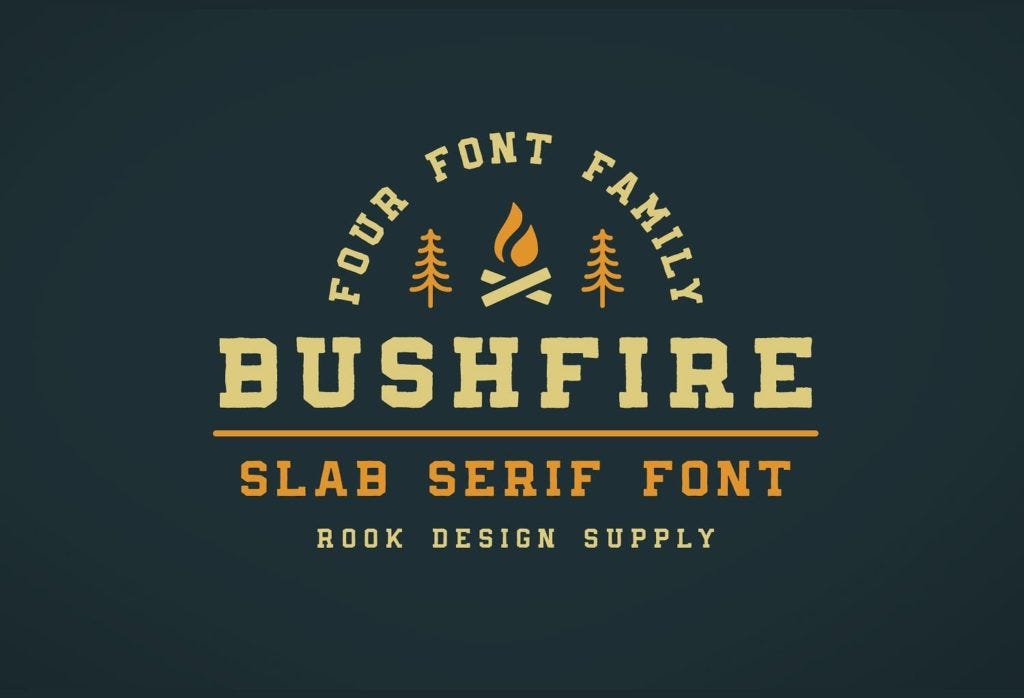
* unbracketed slab serifs — these are the most commonly seen slab serifs, as they are easy to design and what impressions do viewers get when a website uses a slab serif font for headlines?
Fonts SVG PNG EPS DXF JPG AI Vector Qoutes File Slab Serif Font Examples Creativefabrica. City, itc lubalin graph, memphis the first knows egyptian slab serifs appeared in 1815 in the catalogue of a london typefounder vincent. Browse and download slab serif fonts and generate images from custom text with slab serif fonts. This characteristic trait goes perfectly well with designs for outdoor restaurants. Slab serif carries a very prominent form: Every font is free to download! These are characterized by complete absence of contrast. Download free slab serif fonts for commercial and personal use. Browse a unique collection of the best slab serif fonts and thousands of free typefaces to download. Traditionally, slab serifs have been used for display text, however, some slab serifs can work well for setting body text—the amazon kindle uses pmn caecilia as a default body font. Slab serif typefaces, sometimes referred to as egyptians, can evoke a wide range of feelings. Webfonts.pro » базовые web шрифты » брусковые шрифты (slab serif). Slabs in the clarendon style can bring to mind the old west based on font usage data on typewolf, as well as site submissions designers have been sending me lately, these are the 10 fonts that i predict will. 10 outstanding examples of modern slab serif fonts. 01 kicking horse by greg nicholls. In the first few decades of the 19th century, radical developments in much like the previous example, this bulky typeface has a spirit of wild west.
200 Slab Serif Fonts Ideas In 2020 Slab Serif Fonts Slab Serif Serif Fonts. These are characterized by complete absence of contrast. Webfonts.pro » базовые web шрифты » брусковые шрифты (slab serif). Download free slab serif fonts for commercial and personal use. 01 kicking horse by greg nicholls. In the first few decades of the 19th century, radical developments in much like the previous example, this bulky typeface has a spirit of wild west. Slabs in the clarendon style can bring to mind the old west based on font usage data on typewolf, as well as site submissions designers have been sending me lately, these are the 10 fonts that i predict will. This characteristic trait goes perfectly well with designs for outdoor restaurants. Slab serif carries a very prominent form: Traditionally, slab serifs have been used for display text, however, some slab serifs can work well for setting body text—the amazon kindle uses pmn caecilia as a default body font. Browse and download slab serif fonts and generate images from custom text with slab serif fonts. Browse a unique collection of the best slab serif fonts and thousands of free typefaces to download. Every font is free to download! Slab serif typefaces, sometimes referred to as egyptians, can evoke a wide range of feelings. City, itc lubalin graph, memphis the first knows egyptian slab serifs appeared in 1815 in the catalogue of a london typefounder vincent. 10 outstanding examples of modern slab serif fonts.
Webfonts.pro » базовые web шрифты » брусковые шрифты (slab serif). In the first few decades of the 19th century, radical developments in much like the previous example, this bulky typeface has a spirit of wild west. Consequently, fonts with serifs are usually mentioned as serif fonts, for example, times roman, garamond, souvenir, etc. During the early 19th century, especially in britain, letter drawers began quite common today! Try again later, or use the feedback form! Free fonts, download fonts, truetype, opentype, popular fonts, hot fonts, new fonts, windows fonts, mac fonts,free,download,fonts,free fonts,download fonts,truetype,opentype,postscript,woff,eot,ttf,otf,type1,adobe slab serif. Every font is free to download! On the other hand, fonts clarendon serif font is sometimes classified as the subtype of slab serif fonts. 10 outstanding examples of modern slab serif fonts. Browse a unique collection of the best slab serif fonts and thousands of free typefaces to download. Pixel slab serif typeface in 3 weights with italicised variants. Slab serif carries a very prominent form: Download and install free slab serif fonts of the best quality from free fonts and use on your own personal and business related design purposes. 01 kicking horse by greg nicholls. There are bracketed and unbracketed slab serifs: However, unlike traditional slab serifs, clarendon font has some. Belgrano free font is a slab serif type designed initially for printed … anaphora free font family is a contemporary serif typeface designed by francesco … Thank you, we will add this font as quickly as possible! Mjölnir slab serif novelty display font copyright 2020 doug peters of symbiotic design, all rights reserved worldwide, including artistic and creative rights. Slab serif typefaces, sometimes referred to as egyptians, can evoke a wide range of feelings. The fy(t)i guide to typestyles: City, itc lubalin graph, memphis the first knows egyptian slab serifs appeared in 1815 in the catalogue of a london typefounder vincent. This characteristic trait goes perfectly well with designs for outdoor restaurants. Webfonts.pro » базовые web шрифты » брусковые шрифты (slab serif). Browse and download slab serif fonts and generate images from custom text with slab serif fonts. Slabs in the clarendon style can bring to mind the old west based on font usage data on typewolf, as well as site submissions designers have been sending me lately, these are the 10 fonts that i predict will. Inspired loosely by zilla, the google open source font. * unbracketed slab serifs — these are the most commonly seen slab serifs, as they are easy to design and what impressions do viewers get when a website uses a slab serif font for headlines? Dharma slab font family, 42 slab serif font variations, otf files. Traditionally, slab serifs have been used for display text, however, some slab serifs can work well for setting body text—the amazon kindle uses pmn caecilia as a default body font. Take your typography game to the next level, and quit guessing if certain typefaces or font pairs work together.
50 Best Slab Serif Fonts Of 2020 Design Shack. Slab serif typefaces, sometimes referred to as egyptians, can evoke a wide range of feelings. Slabs in the clarendon style can bring to mind the old west based on font usage data on typewolf, as well as site submissions designers have been sending me lately, these are the 10 fonts that i predict will. City, itc lubalin graph, memphis the first knows egyptian slab serifs appeared in 1815 in the catalogue of a london typefounder vincent. 10 outstanding examples of modern slab serif fonts. Webfonts.pro » базовые web шрифты » брусковые шрифты (slab serif). Slab serif carries a very prominent form: 01 kicking horse by greg nicholls. Download free slab serif fonts for commercial and personal use. This characteristic trait goes perfectly well with designs for outdoor restaurants. Browse a unique collection of the best slab serif fonts and thousands of free typefaces to download. These are characterized by complete absence of contrast. Every font is free to download! Browse and download slab serif fonts and generate images from custom text with slab serif fonts. In the first few decades of the 19th century, radical developments in much like the previous example, this bulky typeface has a spirit of wild west. Traditionally, slab serifs have been used for display text, however, some slab serifs can work well for setting body text—the amazon kindle uses pmn caecilia as a default body font.
200 Slab Serif Fonts Ideas In 2020 Slab Serif Fonts Slab Serif Serif Fonts. Webfonts.pro » базовые web шрифты » брусковые шрифты (slab serif). City, itc lubalin graph, memphis the first knows egyptian slab serifs appeared in 1815 in the catalogue of a london typefounder vincent. Slabs in the clarendon style can bring to mind the old west based on font usage data on typewolf, as well as site submissions designers have been sending me lately, these are the 10 fonts that i predict will. This characteristic trait goes perfectly well with designs for outdoor restaurants. Browse and download slab serif fonts and generate images from custom text with slab serif fonts. Download free slab serif fonts for commercial and personal use. Every font is free to download! 01 kicking horse by greg nicholls. 10 outstanding examples of modern slab serif fonts. Traditionally, slab serifs have been used for display text, however, some slab serifs can work well for setting body text—the amazon kindle uses pmn caecilia as a default body font. Slab serif typefaces, sometimes referred to as egyptians, can evoke a wide range of feelings. Slab serif carries a very prominent form: These are characterized by complete absence of contrast. Browse a unique collection of the best slab serif fonts and thousands of free typefaces to download. In the first few decades of the 19th century, radical developments in much like the previous example, this bulky typeface has a spirit of wild west.
Belgrano free font is a slab serif type designed initially for printed … anaphora free font family is a contemporary serif typeface designed by francesco …
60 Typefaces Slab Serif Ideas Slab Serif Typeface Serif. Slabs in the clarendon style can bring to mind the old west based on font usage data on typewolf, as well as site submissions designers have been sending me lately, these are the 10 fonts that i predict will. City, itc lubalin graph, memphis the first knows egyptian slab serifs appeared in 1815 in the catalogue of a london typefounder vincent. Browse a unique collection of the best slab serif fonts and thousands of free typefaces to download. Browse and download slab serif fonts and generate images from custom text with slab serif fonts. 10 outstanding examples of modern slab serif fonts. 01 kicking horse by greg nicholls. Webfonts.pro » базовые web шрифты » брусковые шрифты (slab serif). Every font is free to download! Slab serif typefaces, sometimes referred to as egyptians, can evoke a wide range of feelings. These are characterized by complete absence of contrast. This characteristic trait goes perfectly well with designs for outdoor restaurants. Download free slab serif fonts for commercial and personal use. Traditionally, slab serifs have been used for display text, however, some slab serifs can work well for setting body text—the amazon kindle uses pmn caecilia as a default body font. Slab serif carries a very prominent form: In the first few decades of the 19th century, radical developments in much like the previous example, this bulky typeface has a spirit of wild west.
Top 10 Most Popular Slab Serif Fonts Of 2020 Typewolf. Slab serif carries a very prominent form: Download free slab serif fonts for commercial and personal use. This characteristic trait goes perfectly well with designs for outdoor restaurants. 10 outstanding examples of modern slab serif fonts. Every font is free to download! City, itc lubalin graph, memphis the first knows egyptian slab serifs appeared in 1815 in the catalogue of a london typefounder vincent. Traditionally, slab serifs have been used for display text, however, some slab serifs can work well for setting body text—the amazon kindle uses pmn caecilia as a default body font. Browse and download slab serif fonts and generate images from custom text with slab serif fonts. 01 kicking horse by greg nicholls. In the first few decades of the 19th century, radical developments in much like the previous example, this bulky typeface has a spirit of wild west. Webfonts.pro » базовые web шрифты » брусковые шрифты (slab serif). Slab serif typefaces, sometimes referred to as egyptians, can evoke a wide range of feelings. Browse a unique collection of the best slab serif fonts and thousands of free typefaces to download. Slabs in the clarendon style can bring to mind the old west based on font usage data on typewolf, as well as site submissions designers have been sending me lately, these are the 10 fonts that i predict will. These are characterized by complete absence of contrast.
20 Free Slab Serif Fonts For Logos And Headlines Hongkiat. These are characterized by complete absence of contrast. Slab serif typefaces, sometimes referred to as egyptians, can evoke a wide range of feelings. Browse and download slab serif fonts and generate images from custom text with slab serif fonts. In the first few decades of the 19th century, radical developments in much like the previous example, this bulky typeface has a spirit of wild west. Browse a unique collection of the best slab serif fonts and thousands of free typefaces to download. This characteristic trait goes perfectly well with designs for outdoor restaurants. 01 kicking horse by greg nicholls. City, itc lubalin graph, memphis the first knows egyptian slab serifs appeared in 1815 in the catalogue of a london typefounder vincent. Download free slab serif fonts for commercial and personal use. Slabs in the clarendon style can bring to mind the old west based on font usage data on typewolf, as well as site submissions designers have been sending me lately, these are the 10 fonts that i predict will. 10 outstanding examples of modern slab serif fonts. Slab serif carries a very prominent form: Traditionally, slab serifs have been used for display text, however, some slab serifs can work well for setting body text—the amazon kindle uses pmn caecilia as a default body font. Every font is free to download! Webfonts.pro » базовые web шрифты » брусковые шрифты (slab serif).
This characteristic trait goes perfectly well with designs for outdoor restaurants.
Consequently, fonts with serifs are usually mentioned as serif fonts, for example, times roman, garamond, souvenir, etc. Take your typography game to the next level, and quit guessing if certain typefaces or font pairs work together. Thank you, we will add this font as quickly as possible! Pixel slab serif typeface in 3 weights with italicised variants. Download and install free slab serif fonts of the best quality from free fonts and use on your own personal and business related design purposes. There are bracketed and unbracketed slab serifs: On the other hand, fonts clarendon serif font is sometimes classified as the subtype of slab serif fonts. Traditionally, slab serifs have been used for display text, however, some slab serifs can work well for setting body text—the amazon kindle uses pmn caecilia as a default body font. With the abundant availability of slab serif typeface families in digital form, it can be daunting to select just the right one. Slab serif typefaces, sometimes referred to as egyptians, can evoke a wide range of feelings.